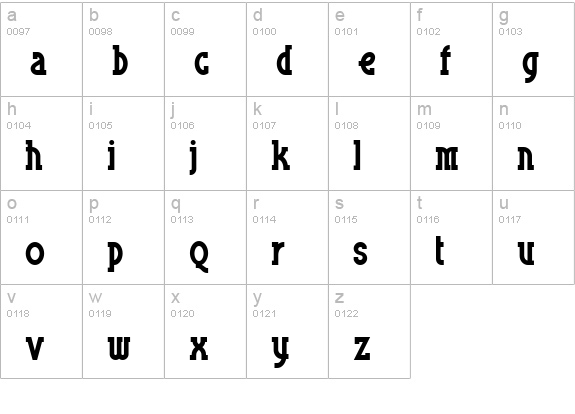
Blue Plate Special NF Font Details
The Blue Plate Special NF font is a delightful and charming typeface that exudes a sense of nostalgia and warmth. With its unique and playful design, this font is perfect for adding a touch of whimsy to your projects. The Blue Plate Special NF font is versatile and can be used for a variety of design purposes, from branding to packaging to social media graphics. What makes the Blue Plate Special NF font even more appealing is that it is completely free to download at FontsMarket.com. That's right, you can easily access this lovely font without having to spend a penny. So why wait? Add a dash of fun and creativity to your designs with the Blue Plate Special NF font today!